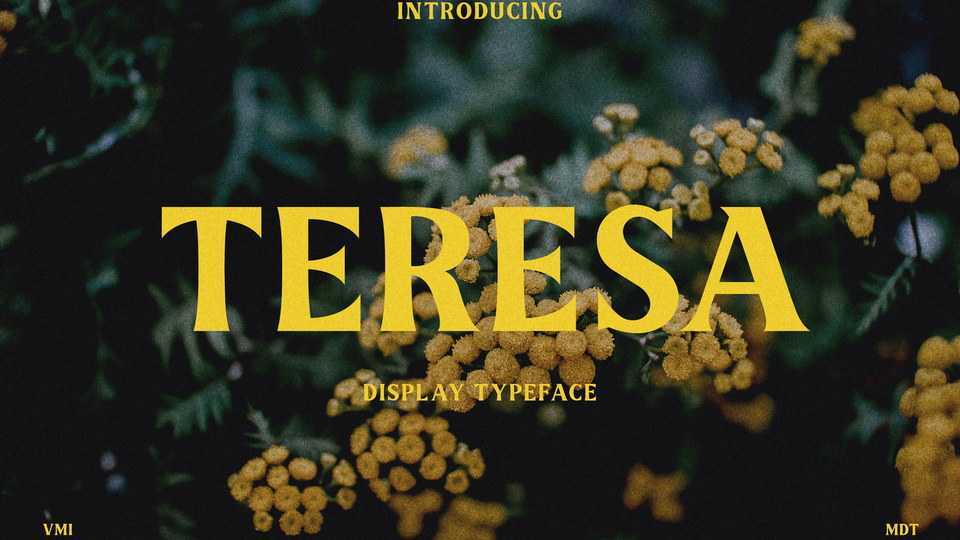
Download Teresa font, a stylish serif typeface inspired by vintage letterforms. Teresa is easy recognizable and great for titles, headlines and short texts.
Designer: Áron Farsang